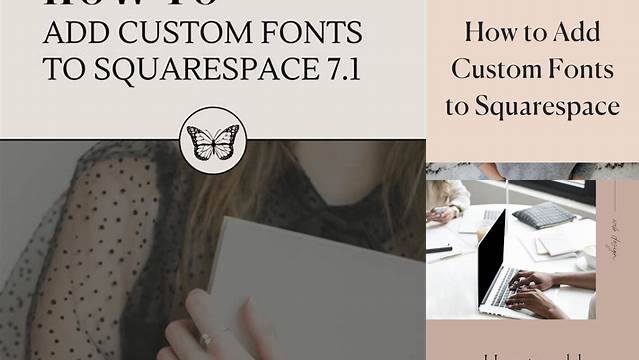
Add Custom Fonts To Squarespace 7.1: A Simple Guide
Hey guys! Want to make your Squarespace 7.1 website stand out? One of the best ways to do that is by adding custom fonts. Using custom fonts can really elevate your brand and give your site a unique look and feel. But don't worry, it's not as complicated as it sounds. This guide will walk you through everything you need to know to add custom fonts to Squarespace 7.1.
1. Understanding Squarespace 7.1 Font Options
Before diving into adding custom fonts, it's essential to understand the default font options available in Squarespace 7.1. Squarespace offers a wide range of pre-installed fonts that you can easily use through the site styles panel. These fonts are well-optimized for web use and integrate seamlessly with the platform. However, if you're looking to create a truly unique brand identity, custom fonts are the way to go. Understanding the existing options will also help you appreciate the flexibility that custom fonts bring to your website design. Squarespace's built-in fonts are categorized and easily searchable, allowing you to quickly apply different styles to your headings, body text, and other elements. While these fonts are versatile, they might not always align perfectly with your brand's specific aesthetic. This is where the ability to upload and use custom fonts becomes invaluable, providing you with complete control over your website's typography. Plus, knowing the limitations of the default fonts will make you more strategic in choosing and implementing your custom fonts.
2. Finding the Right Custom Font
The first step in adding custom fonts is finding the right font for your brand. Consider what kind of message you want to convey. A playful brand might use a whimsical, hand-lettered font, while a professional firm might opt for a clean, modern sans-serif. There are tons of resources out there for finding fonts. Google Fonts is a great place to start because it offers a wide selection of free, open-source fonts that are optimized for the web. DaFont is another popular resource, offering a variety of free fonts, although you should always check the license to make sure it's suitable for your intended use. For premium options, check out sites like MyFonts or Adobe Fonts. These sites offer high-quality fonts with extensive character sets and licensing options. Remember to choose fonts that are not only aesthetically pleasing but also legible and accessible. Test your chosen font on different devices and screen sizes to ensure it looks good across the board. Consistency is key, so select a limited number of fonts (typically one or two) to use throughout your website to maintain a cohesive brand identity.
3. Preparing Your Font Files
Once you've found the perfect custom font, you need to prepare the font files for upload. Squarespace 7.1 supports various font file formats, including .woff, .woff2, .ttf, and .otf. The .woff and .woff2 formats are generally preferred because they are optimized for web use and offer better compression, resulting in faster loading times. If you've downloaded a font in .ttf or .otf format, you can easily convert it to .woff or .woff2 using online font converters like Font Squirrel's Webfont Generator. This tool allows you to upload your font file and convert it to the necessary formats with just a few clicks. When converting your font files, make sure to select the appropriate options for web embedding to ensure compatibility and optimal performance. It's also a good idea to create a backup of your original font files before making any changes. Organizing your font files in a dedicated folder will help you keep track of them and streamline the upload process. Finally, ensure that you have the proper license to use the font on your website. Some fonts may have restrictions on commercial use or require attribution.
4. Uploading Custom Fonts to Squarespace
Now that you have your font files ready, it's time to upload them to Squarespace. To do this, navigate to your Squarespace dashboard and go to Design > Custom CSS. This is where you'll add the CSS code to import your custom fonts. Before you start coding, you need to upload the font files to Squarespace's file storage. In the Custom CSS panel, click on Manage Custom Files at the bottom. This will open a file uploader where you can drag and drop your .woff and .woff2 font files. Once the files are uploaded, they will be stored on Squarespace's servers and assigned a unique URL. Keep these URLs handy, as you'll need them in the next step to reference the fonts in your CSS code. Make sure to name your font files in a way that makes them easy to identify and remember. For example, if your font is called "MyCustomFont", you might name the files "mycustomfont-regular.woff" and "mycustomfont-regular.woff2". This will help you stay organized and avoid confusion when you're working with multiple custom fonts. Also, double-check that the files have been uploaded correctly before proceeding.
5. Implementing the @font-face Rule
With your font files uploaded, you'll need to use the @font-face rule in your Custom CSS to define your custom fonts. The @font-face rule tells the browser where to find the font files and what name to use when referencing the font in your CSS. Here’s a basic example of how to use the @font-face rule:
@font-face {
font-family: 'MyCustomFont';
src: url('your-font-file.woff2') format('woff2'),
url('your-font-file.woff') format('woff');
font-weight: normal;
font-style: normal;
}
Replace 'MyCustomFont' with the name you want to use for your font. This is the name you'll use in your CSS to apply the font to different elements. Replace 'your-font-file.woff2' and 'your-font-file.woff' with the actual URLs of your uploaded font files. You can find these URLs in the Manage Custom Files section. The format() property specifies the font file format. It's important to include both .woff2 and .woff formats to ensure compatibility across different browsers. The font-weight and font-style properties define the font's weight (e.g., normal, bold) and style (e.g., normal, italic). You can define multiple @font-face rules for different weights and styles of the same font. For example, you might have separate rules for the regular, bold, and italic versions of your custom font.
6. Applying Custom Fonts to Your Site
Once you've defined your custom fonts using the @font-face rule, you can start applying them to different elements on your website. To do this, you'll need to use CSS selectors to target the elements you want to style. For example, to apply your custom font to all <h1> headings, you would use the following CSS:
h1 {
font-family: 'MyCustomFont', sans-serif;
}
Replace 'MyCustomFont' with the name you defined in the @font-face rule. The sans-serif part is a fallback font that will be used if the custom font fails to load. You can apply your custom font to any HTML element, including headings, paragraphs, buttons, and more. You can also use more specific CSS selectors to target specific elements or sections of your website. For example, to apply the custom font only to headings within a specific class, you might use a selector like .my-section h1. Remember to test your changes on different devices and screen sizes to ensure that the custom font looks good across the board. You may need to adjust the font size, line height, and other CSS properties to optimize the appearance of your text. Also, be mindful of accessibility. Ensure that your font choices provide sufficient contrast and are legible for all users.
7. Using Font Weight and Style Variations
Most custom fonts come in various weights and styles, such as bold, italic, and light. To use these variations, you'll need to define separate @font-face rules for each weight and style. For example, if you have a bold version of your custom font, you would define a separate rule like this:
@font-face {
font-family: 'MyCustomFont';
src: url('your-font-file-bold.woff2') format('woff2'),
30. Future Trends in Web Typography
The world of web typography is constantly evolving, with new trends and technologies emerging all the time. Here are some future trends in web typography to keep an eye on: Variable fonts are becoming increasingly popular. Variable fonts allow you to adjust various font properties, such as weight, width, and slant, using CSS. This can significantly reduce file sizes and improve performance. Color fonts are also gaining traction. Color fonts allow you to embed color information directly into your fonts. This can be used to create visually stunning and unique typography effects. 3D typography is becoming more common. 3D typography can add depth and dimension to your website design. Interactive typography is also on the rise. Interactive typography allows you to create dynamic and engaging typography effects that respond to user interactions. AI-powered typography tools are being developed. These tools can help you choose the right fonts, create effective typography hierarchies, and optimize your fonts for performance and accessibility. As web technology continues to evolve, expect to see even more innovative and exciting developments in the world of web typography. By staying up-to-date on the latest trends, you can ensure that your website remains visually appealing and engaging.